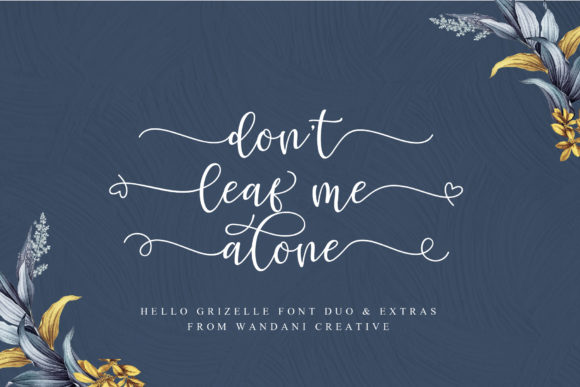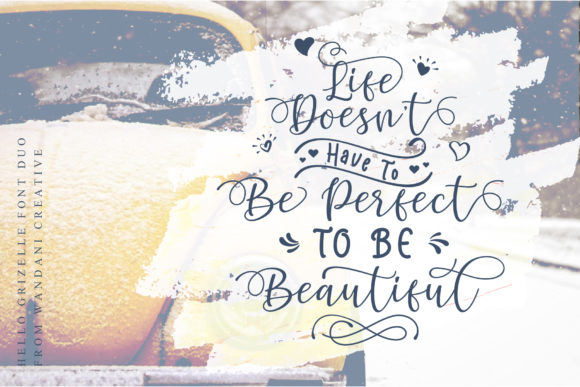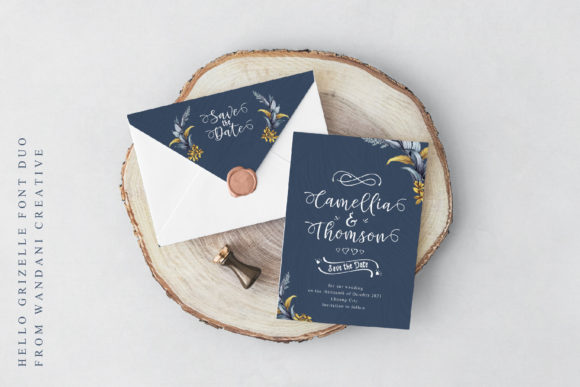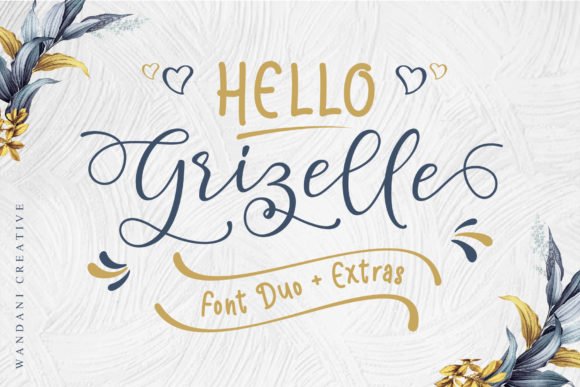
Introduction to Hello Grizelle Duo Font
Hello Grizelle is an amazing and charming handwritten font duo with inspiring extras.
It will add a unique spark to any design idea .
Key Features of Hello Grizelle Duo Font
Why Choose Hello Grizelle Duo Font?